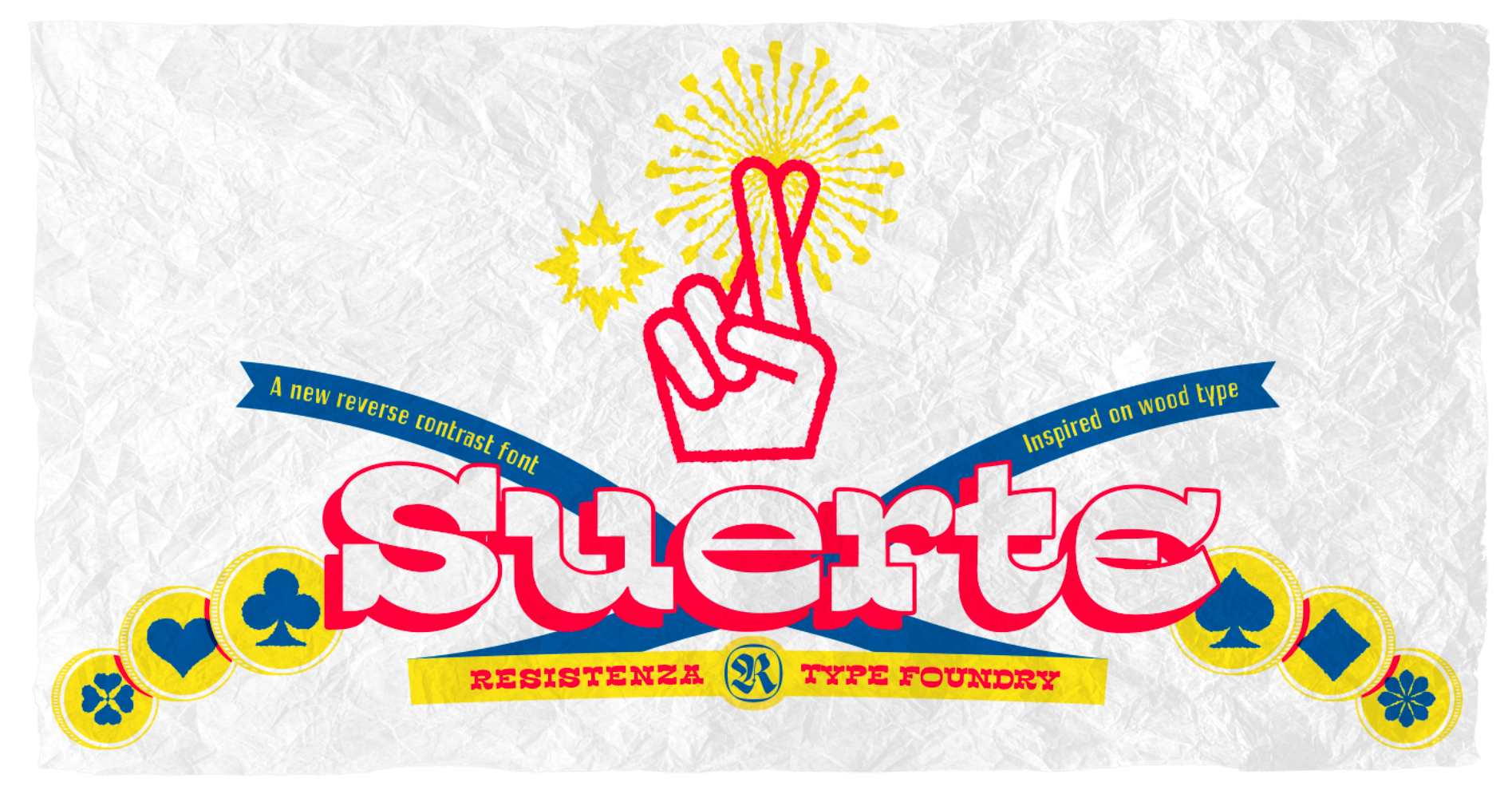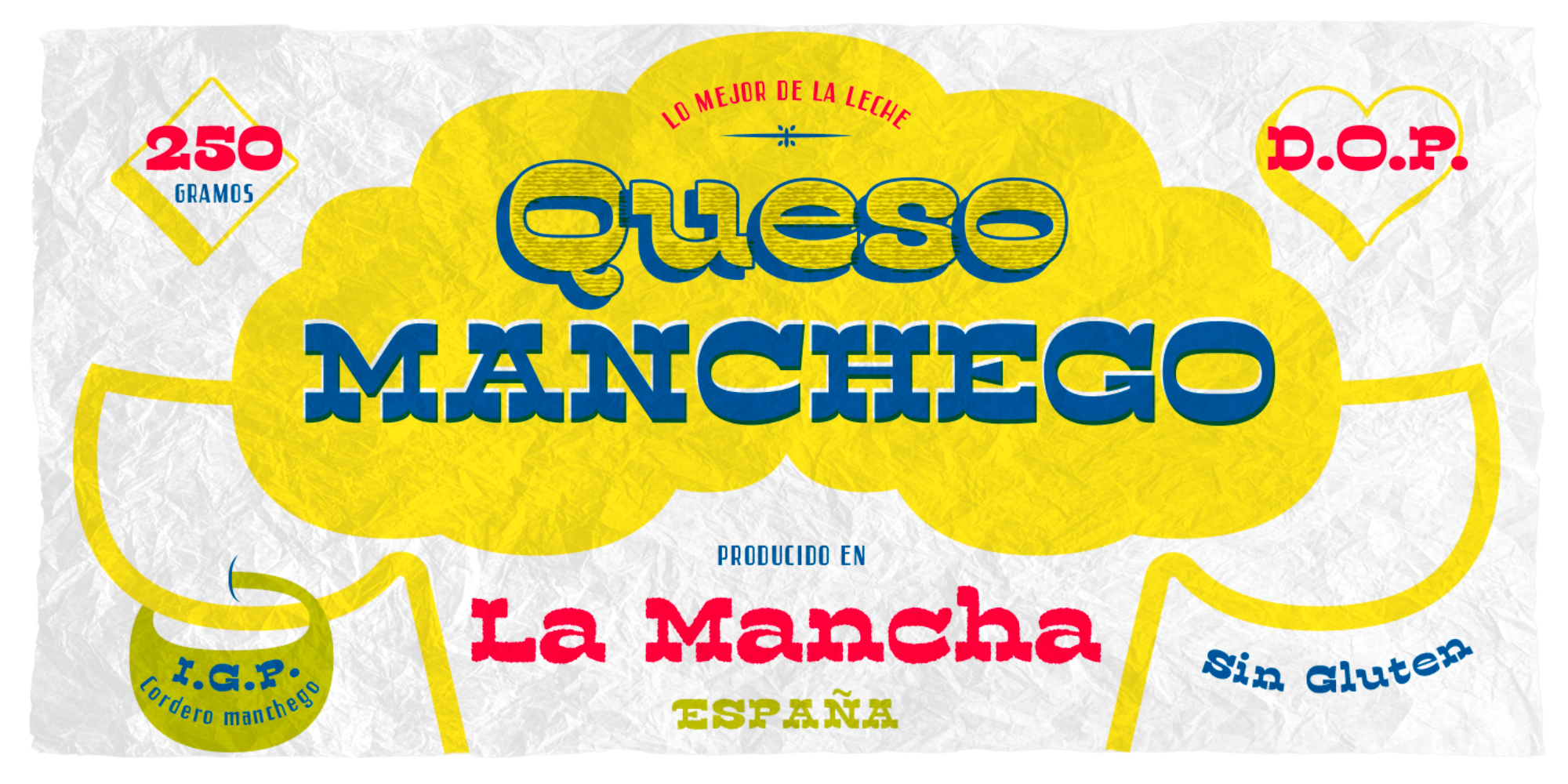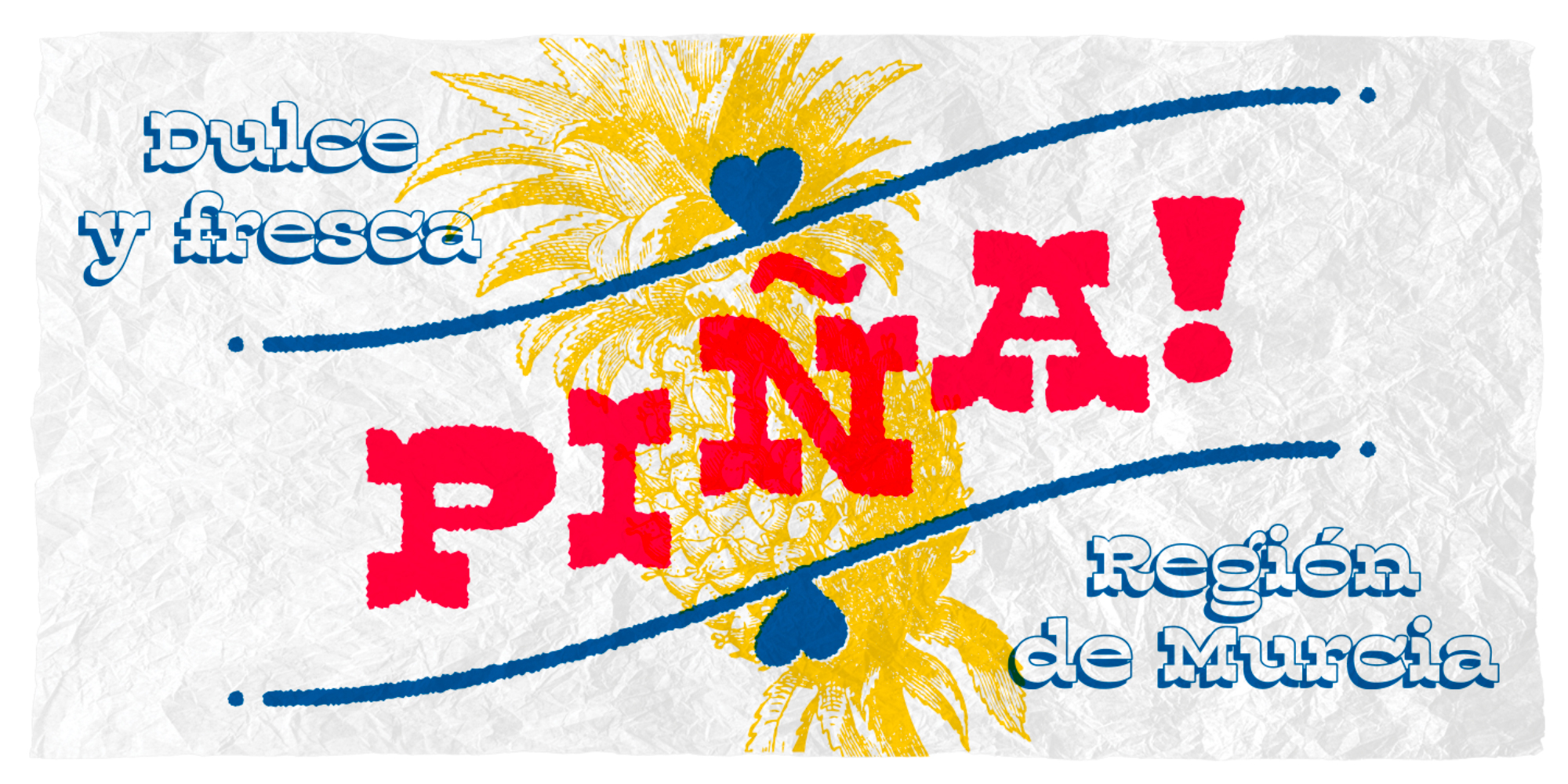
Suerte
Inverted contrast and bifurcated serifs
Suerte
Designed by Resistenza Type FoundrySay hello to Suerte. This new typeface with inverted contrast and bifurcated serifs was inspired by Caslon’s Italian type and by Aldo Novarese’s Estro, published by the turinese foundry Nebiolo.
Our aim was to develop a wood type typeface adding a new personality incorporating Tuscan serifs. The complete alphabet was designed with a flat long brush and Indian ink and then vectorized.
Suerte contains a big set of icons and dingbats.